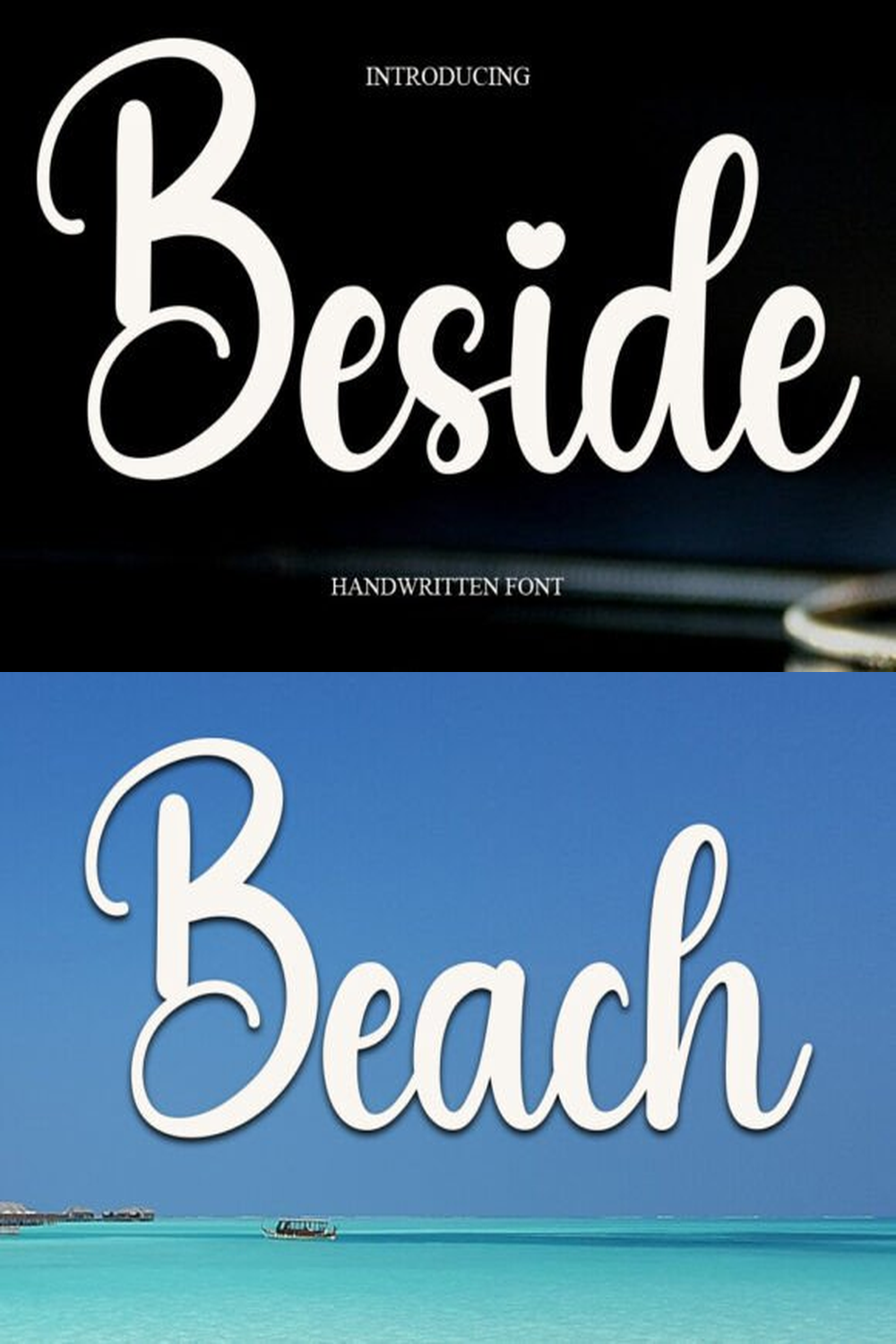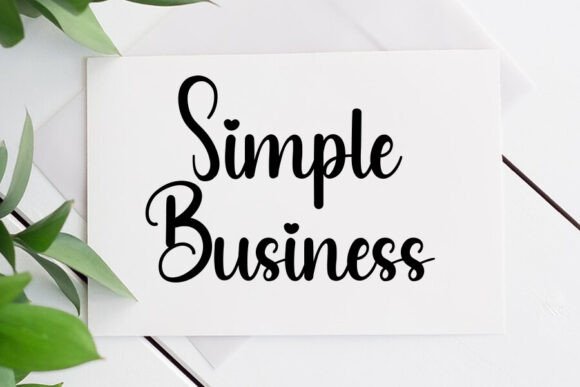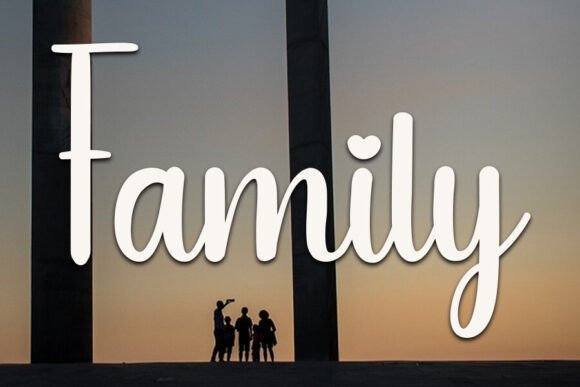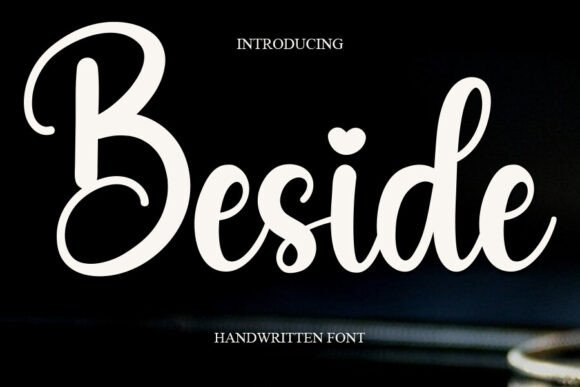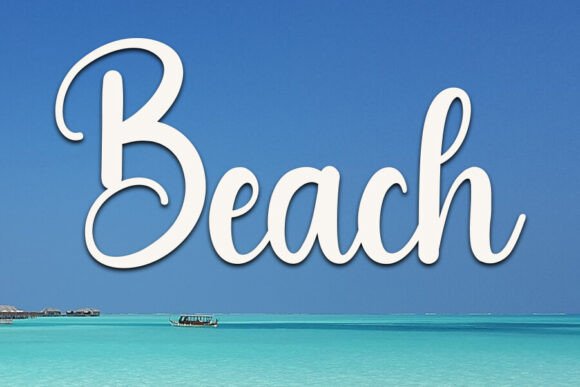
Beside Font: Elegant Calligraphy Script for Modern Logo Design
About the Beside Font
Presenting Beside Font, a unique and stylish typeface that will make your work stand out. Beside is a simple handwritten font. This versatile font has a wide spectrum of applications ranging from greeting cards to headlines and is guaranteed to add a simple and natural feel to your next project!